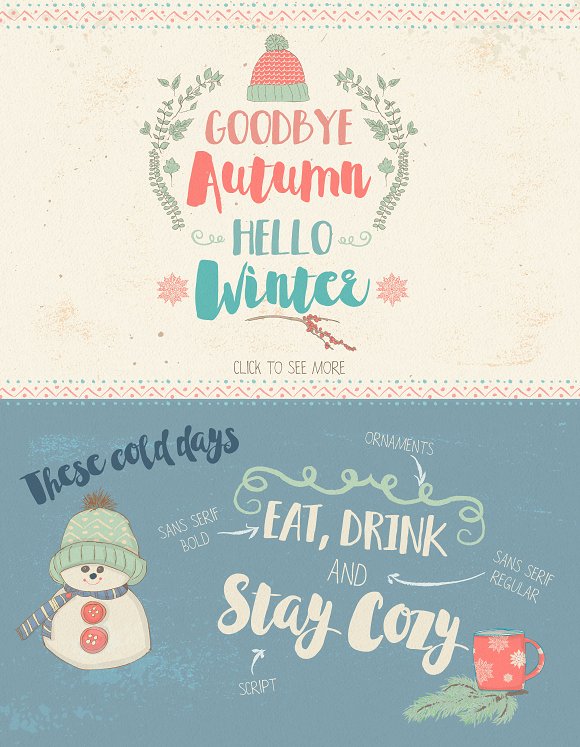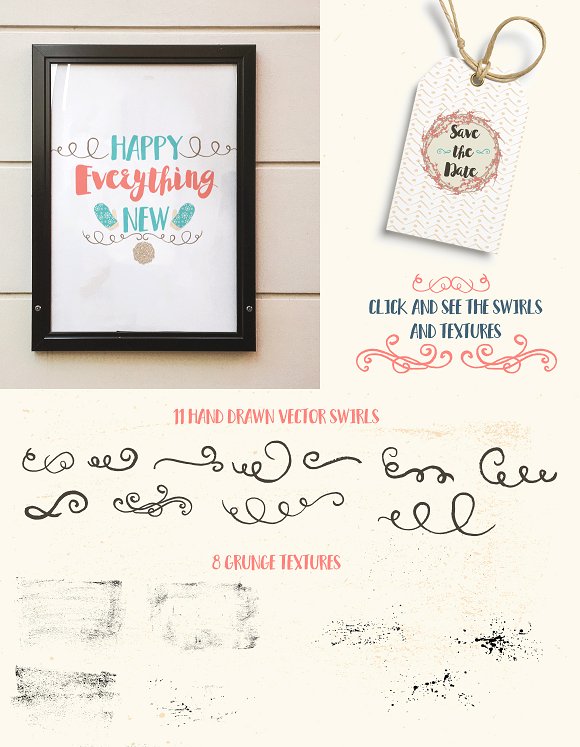
Winter Tales Font Trio + extras
This trio has script version, sans serif regular and sans serif bold. It will be a lots of pleasure to create your designs with these three guys. Very suitable for greeting cards, branding materials, business cards, quotes, posters, and more! For even more fun there are lots of hand drawn vector illustrations, seamless patterns, swirls and textures included.